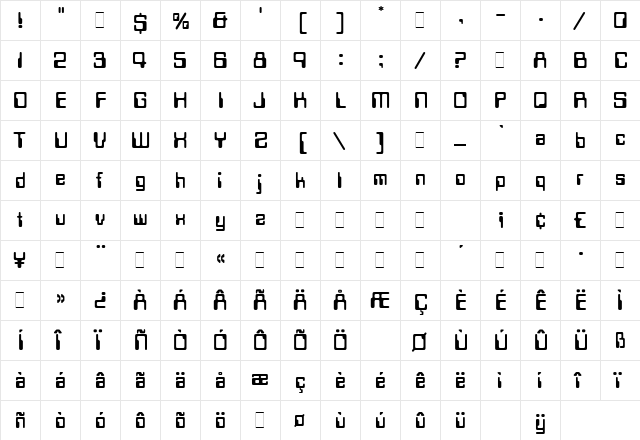
Data Seventy LET Plain
Design Context for Data Seventy LET Typeface
Data Seventy LET takes a measured approach to typography — its balanced proportions and neutral character make it a reliable workhorse for both digital and print work.